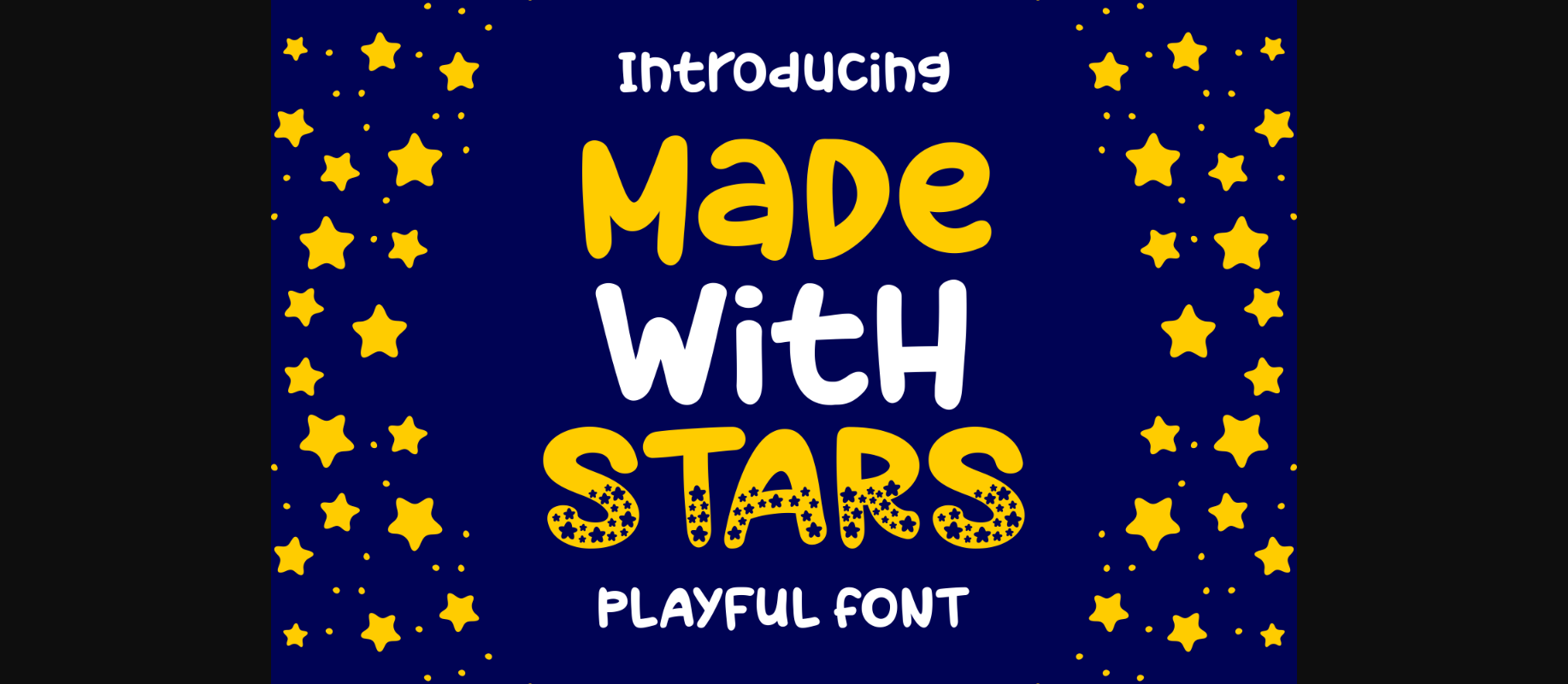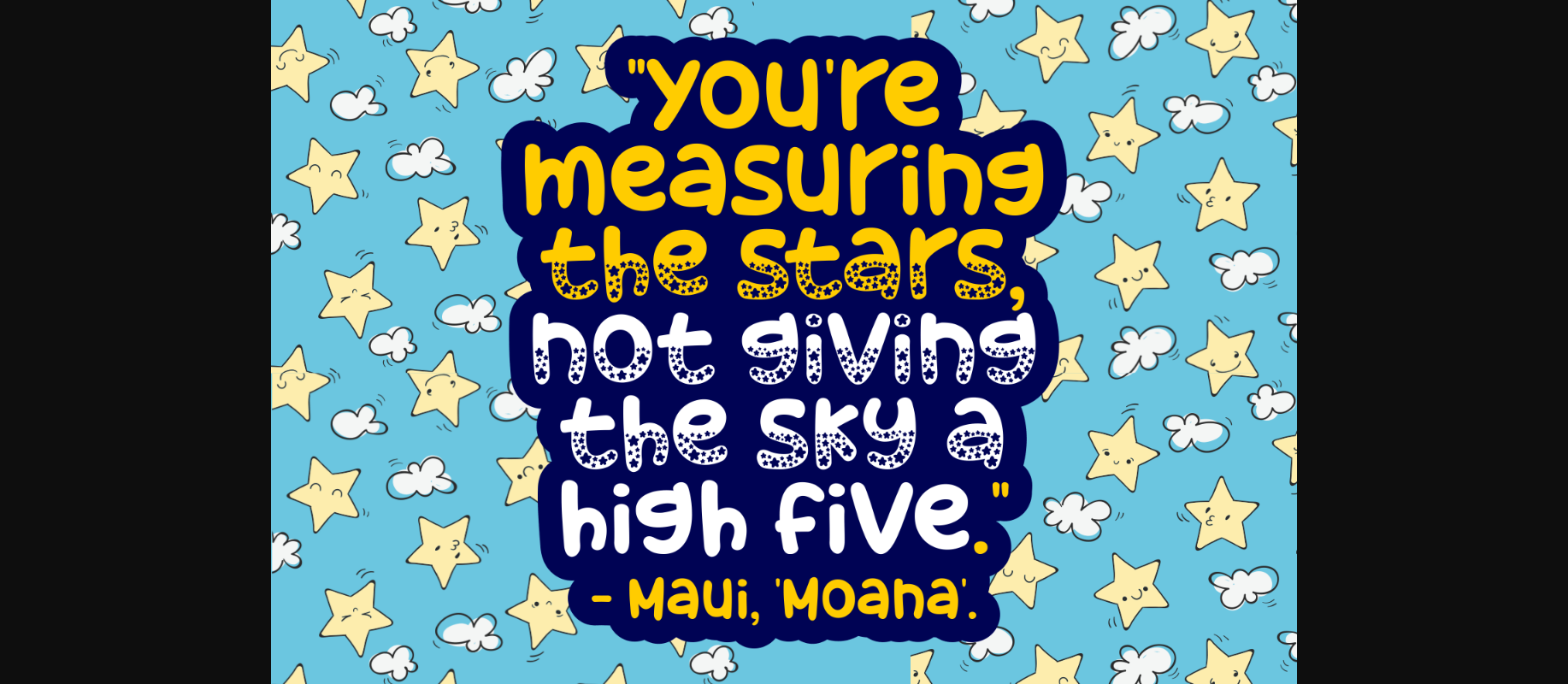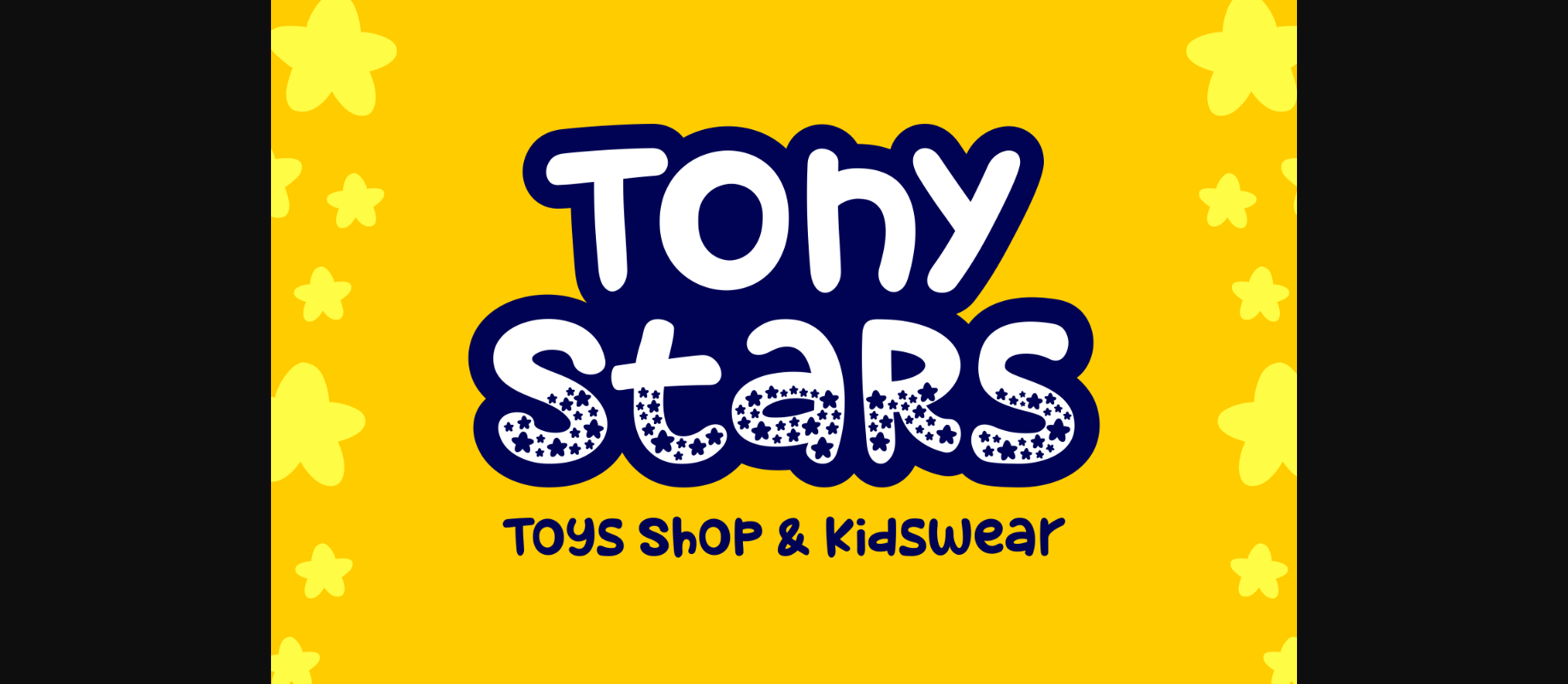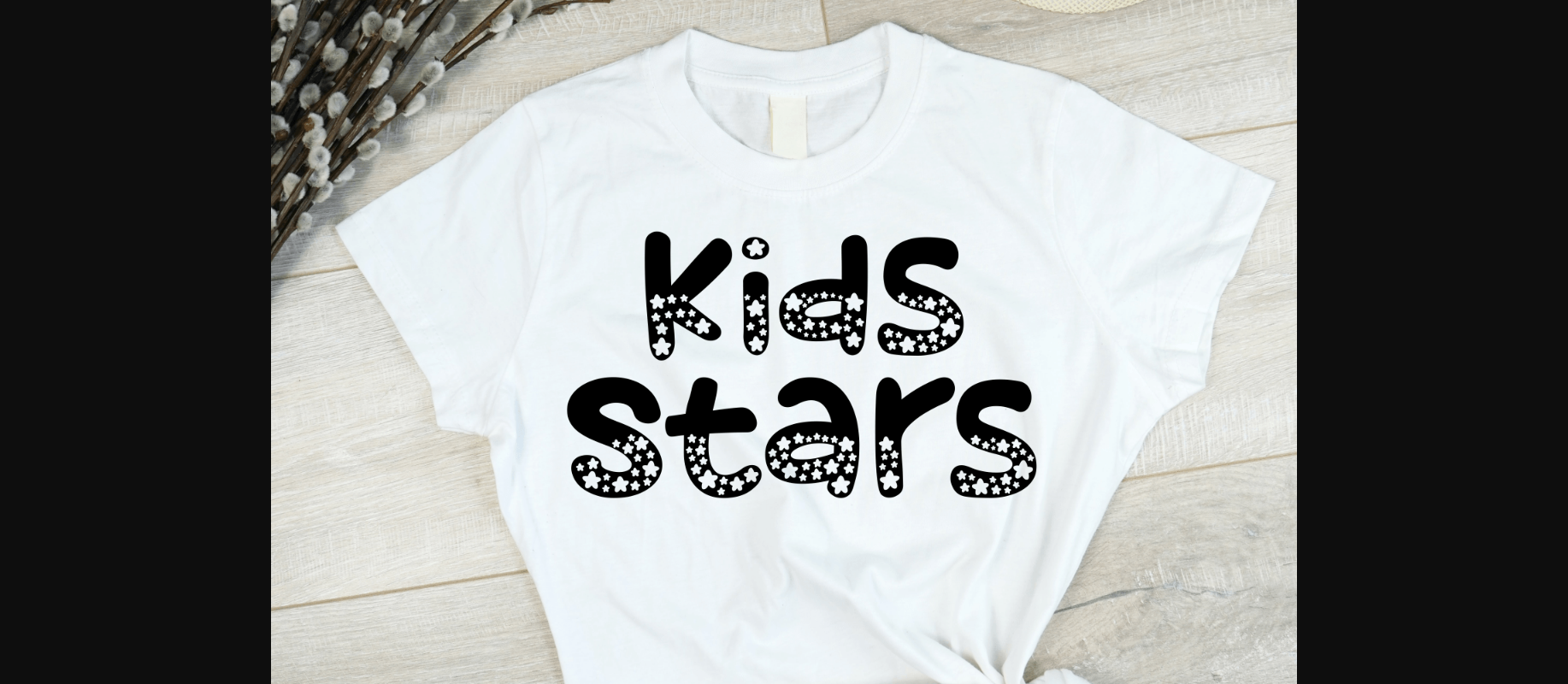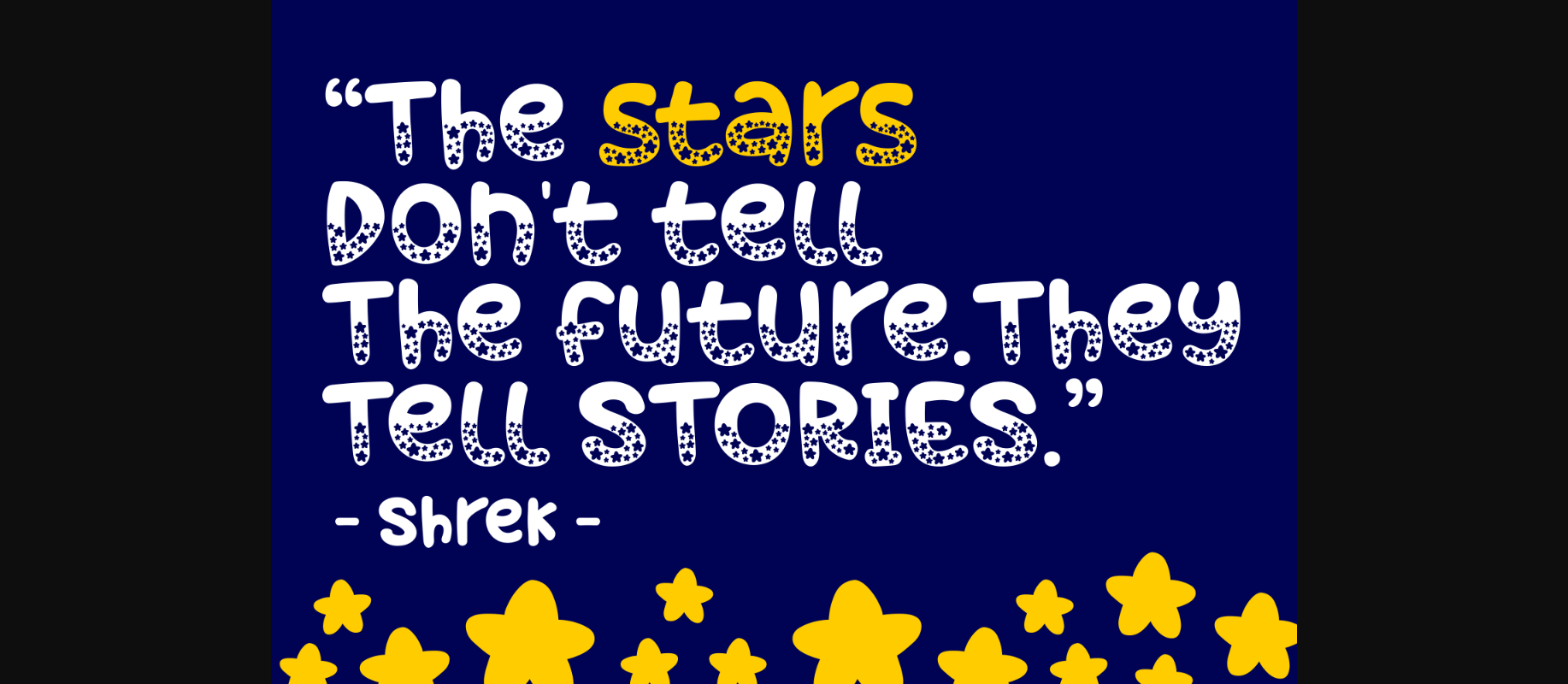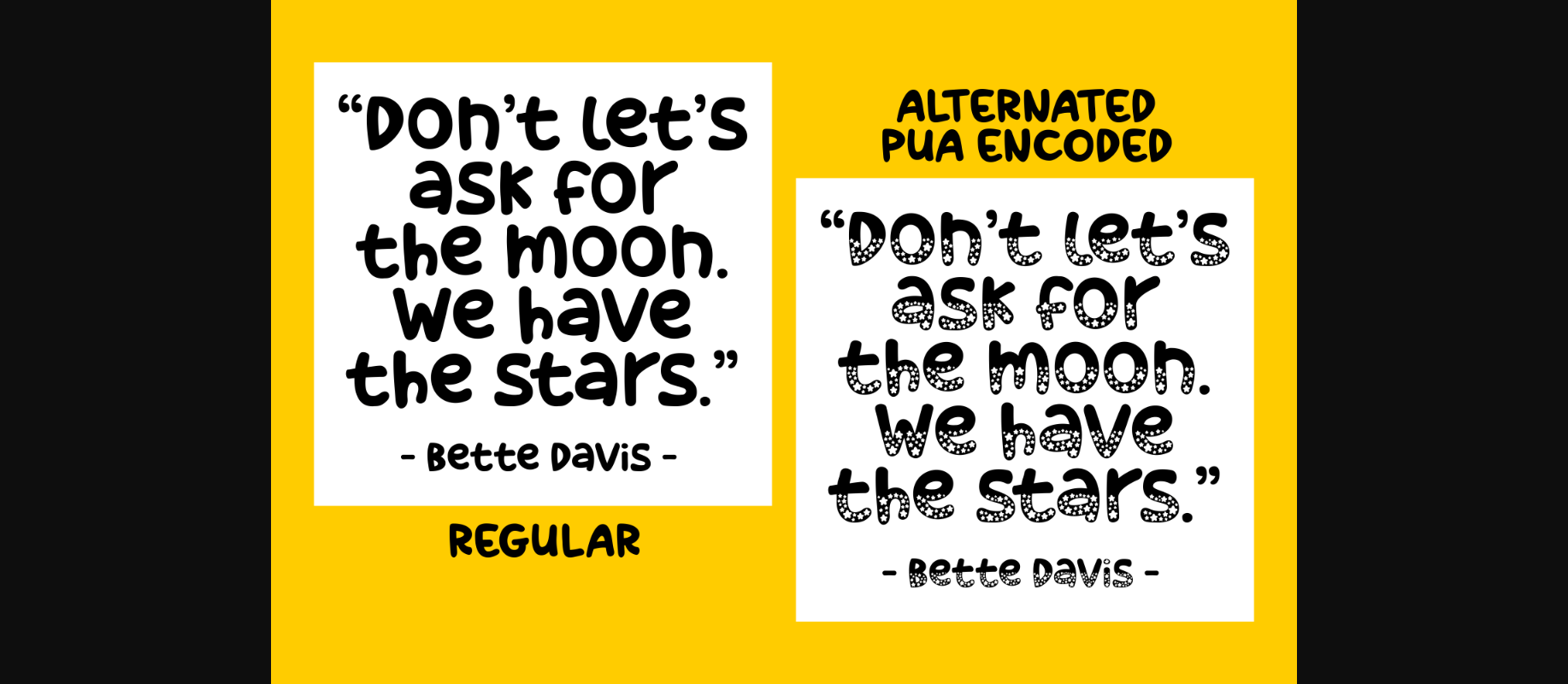
About Made with Stars Font
“Made With Stars” is a splendid display and decorative font made with stars and passion. Its unique starry characters will fill your creations with so much beauty and uniqueness – you’ll love it!